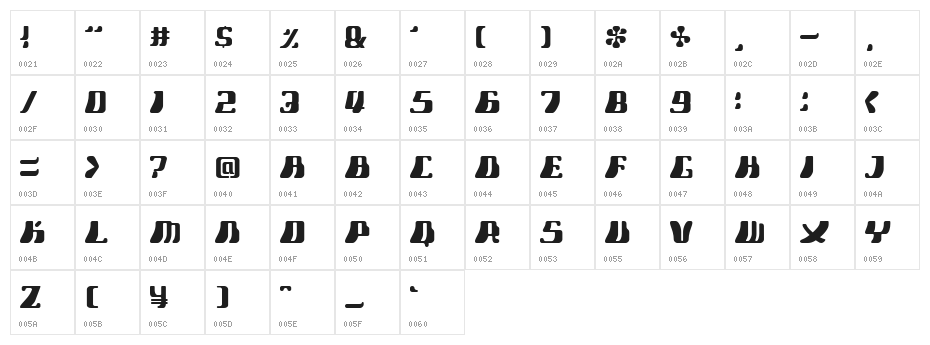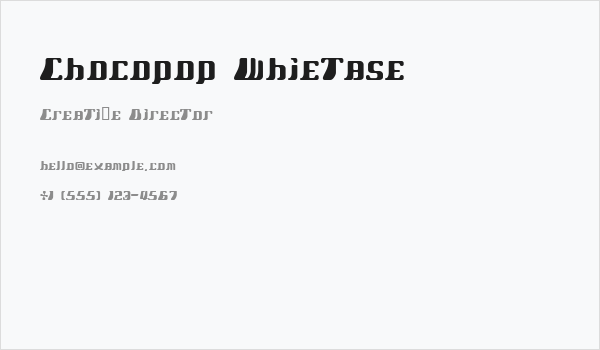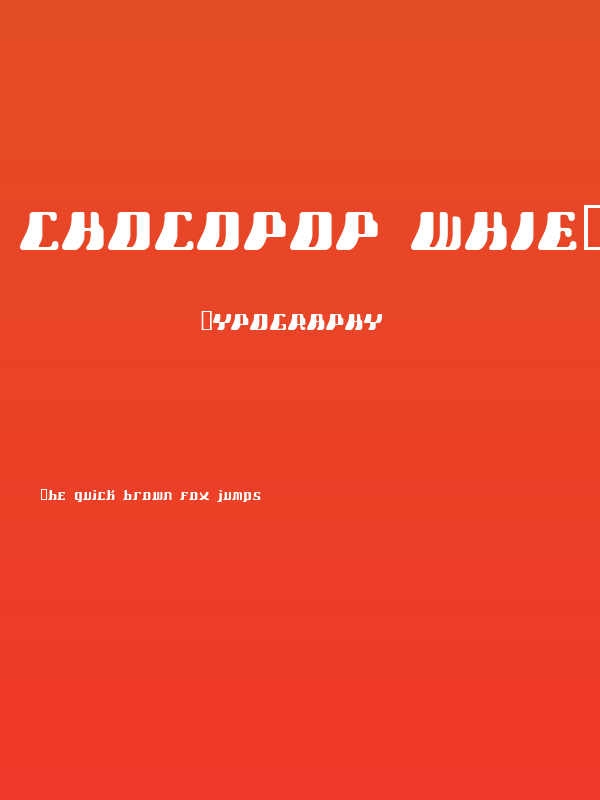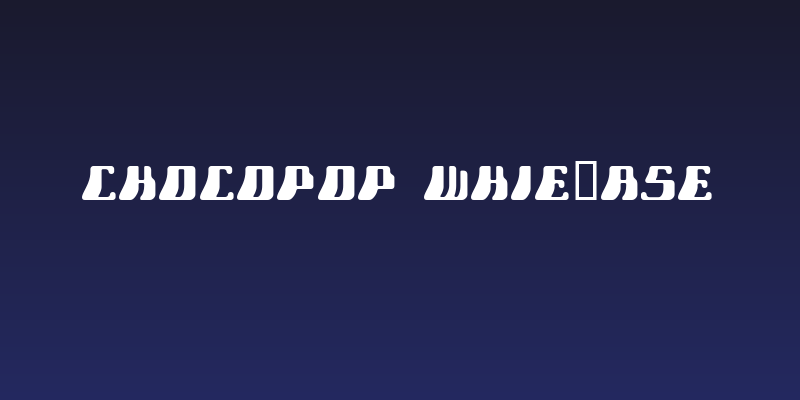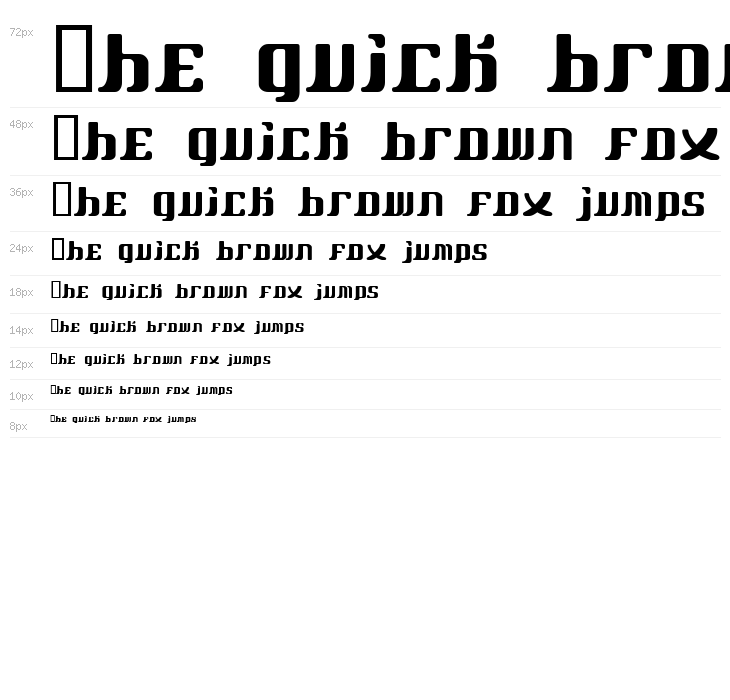
Chocopop Whietase Font
Chocopop Whietase Description
This font features a bold and playful design with a unique blend of rounded and angular elements. The characters have a distinct, chunky appearance with a high contrast between thick and thin strokes, giving it a dynamic and energetic feel. The uppercase and lowercase letters maintain a consistent style, with the lowercase slightly more compact. Numbers and special characters follow the same bold and playful aesthetic, making them stand out. The font's overall look is modern and eye-catching, suitable for creative and informal applications.
CHOCOPOP-WHIETASE UPPERCASE
CHOCOPOP-WHIETASE LOWERCASE
CHOCOPOP-WHIETASE OTHER CHARS